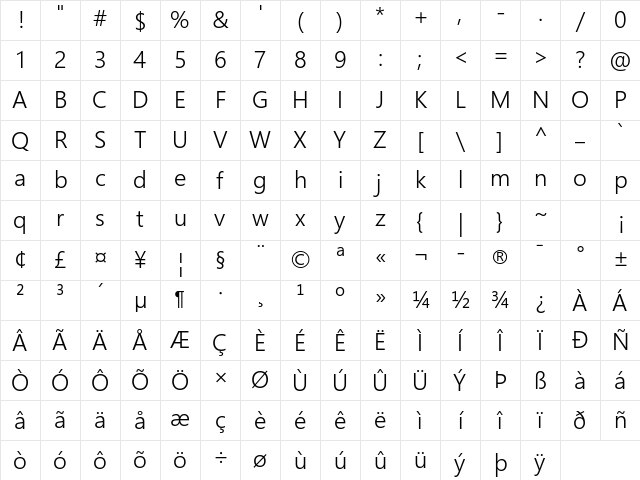
Nirmala UI Semilight Regular
Foundry: Microsoft Corporation
Designer: Tiro Typeworks Ltd. Design direction by Fiona Ross. Bengali by Neelakash Kshetrimayum, following original Nirmala UI design by Jo De Baerdemaeker. Meetei Mayek by Neelakash Kshetrimayum. Chakma by Paul Hanslow. All other scripts by John Hudson, following
Complete Nirmala UI Semilight Regular glyph index. Displaying only characters natively supported by Nirmala UI Semilight Regular font.
Design Context for Nirmala UI Semilight
Nirmala UI Semilight is a composed and adaptable typeface that performs quietly and consistently across a wide range of design contexts. Its slender proportions lend an understated elegance to any composition.